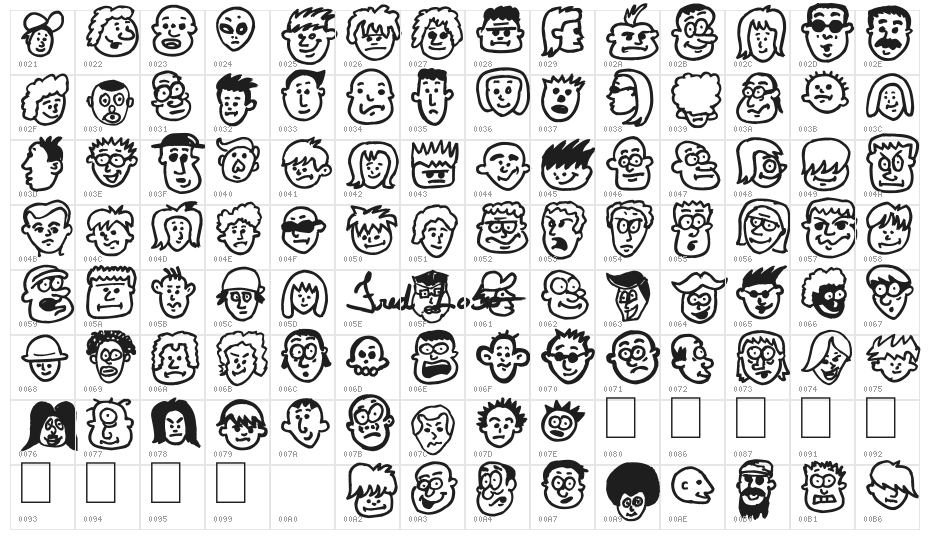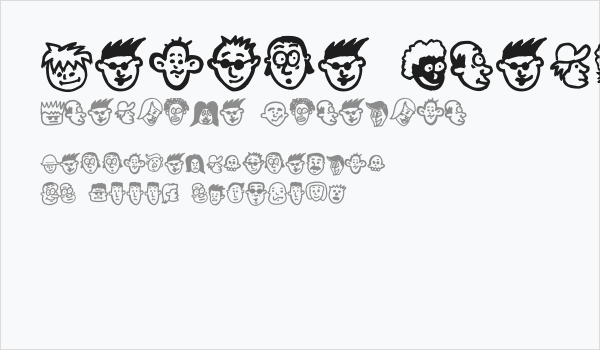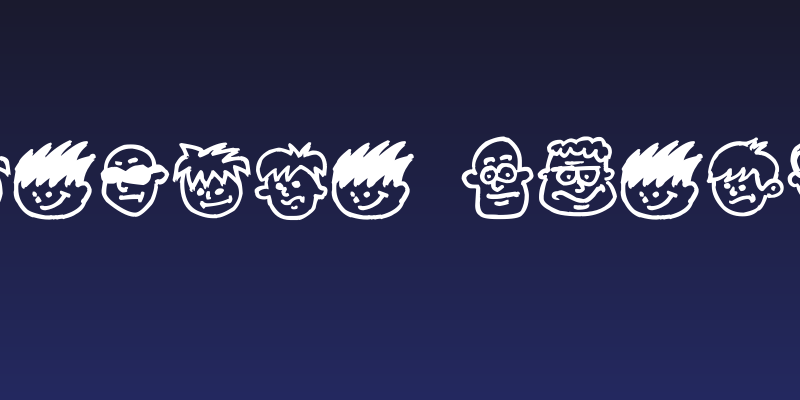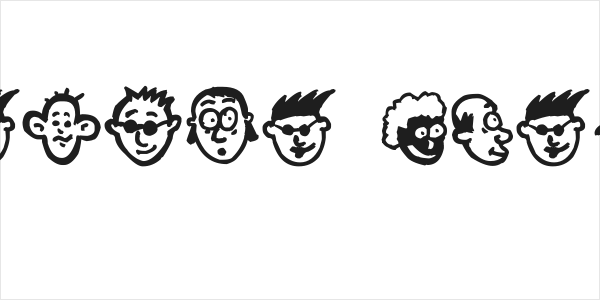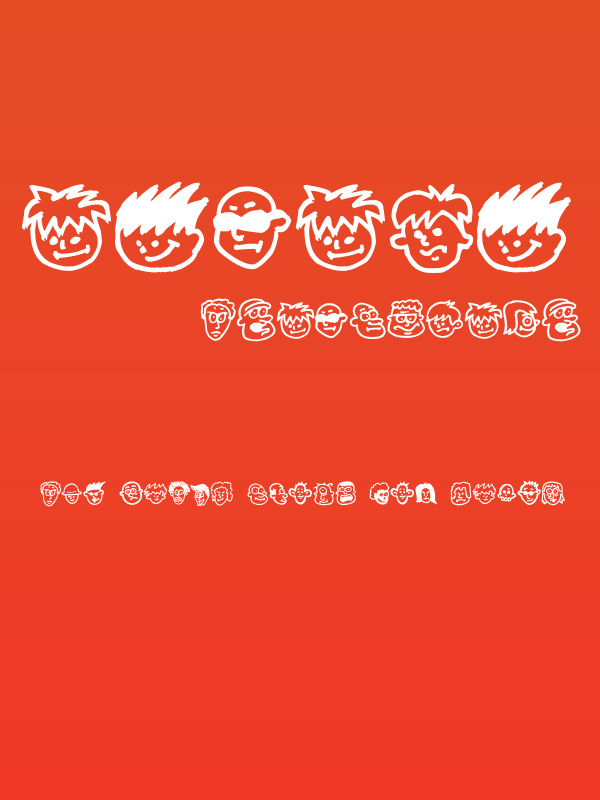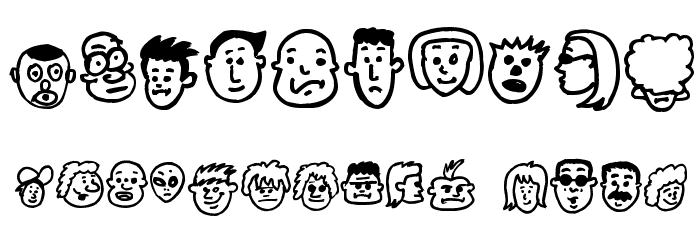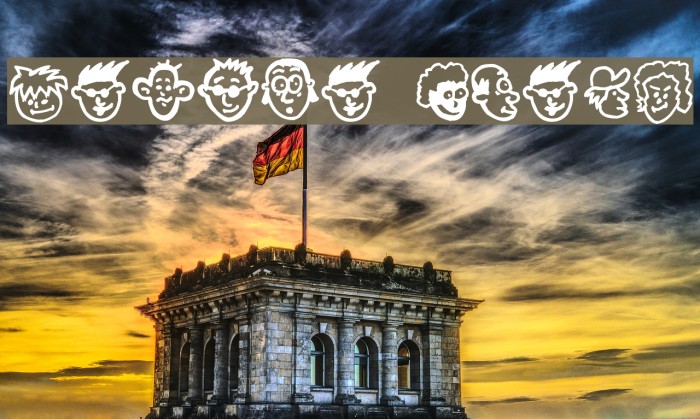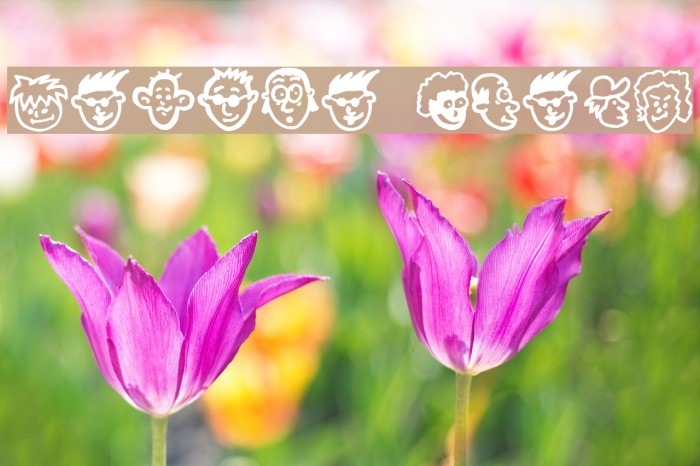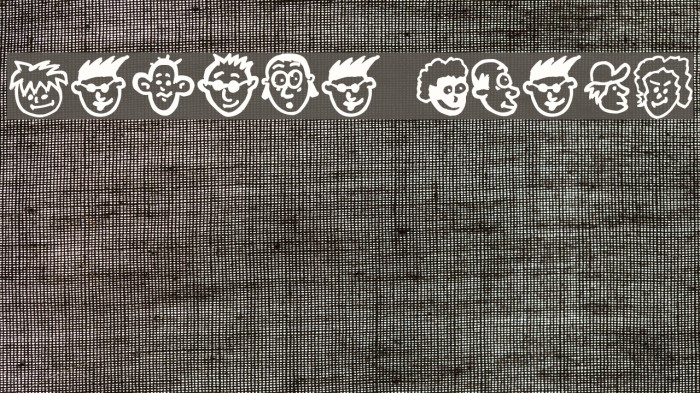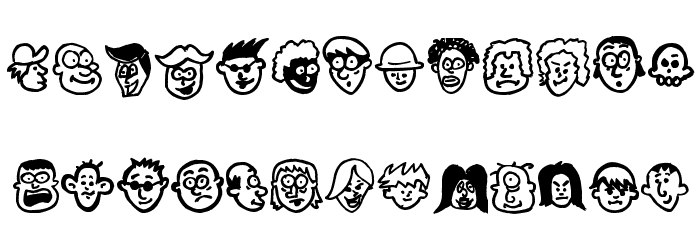
People freak Font
People freak Description
| Overall Style | Decorative, Playful, Whimsical |
| Use Case | Logos, Headlines, Posters, Children's materials |
| Proposed Projects | Children's books, comic titles, party invitations, playful branding, posters, and creative projects needing a fun, informal touch. |